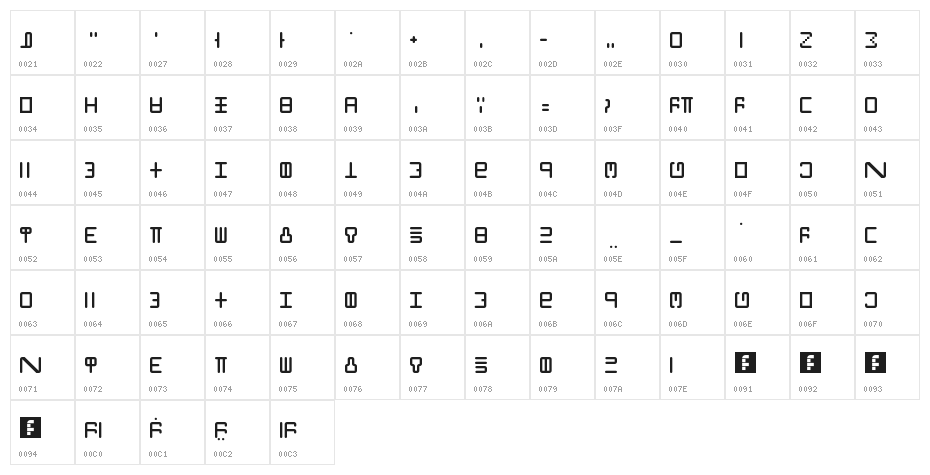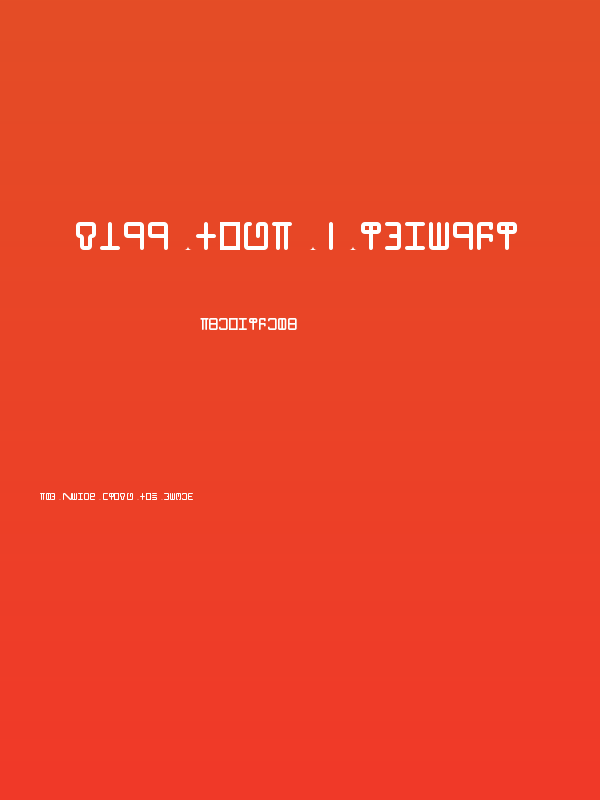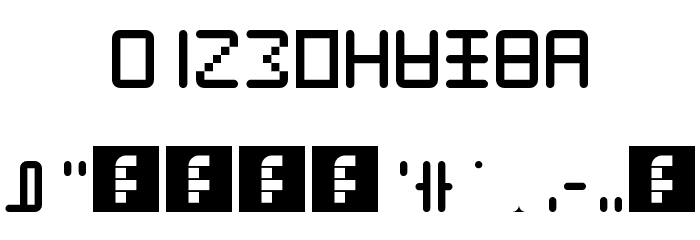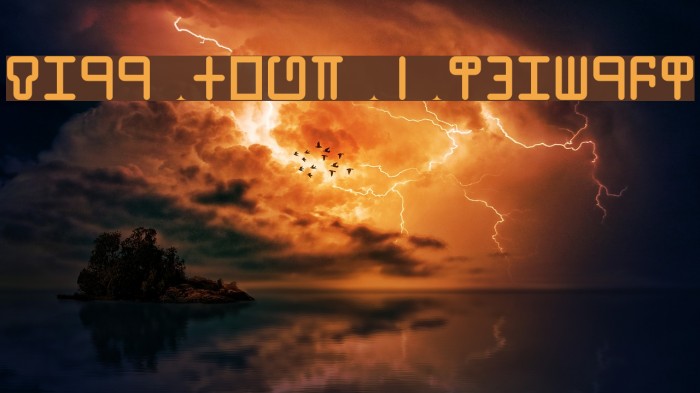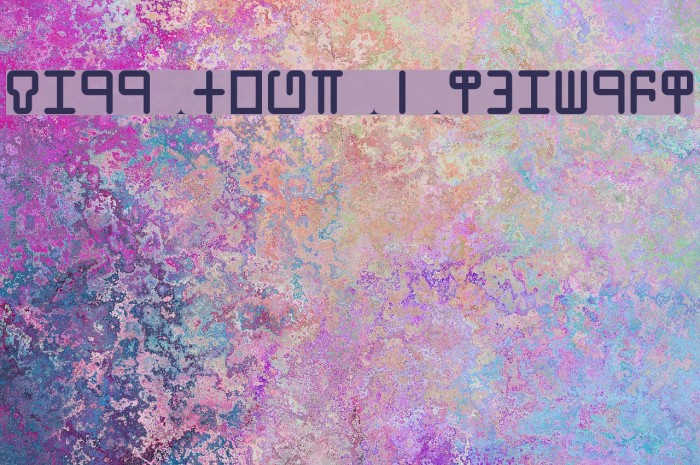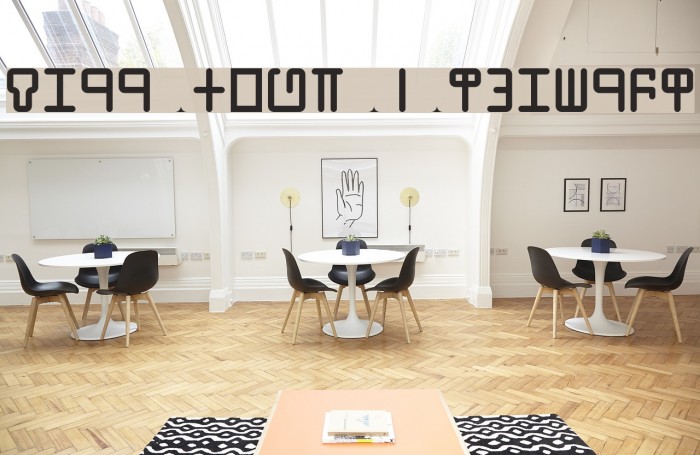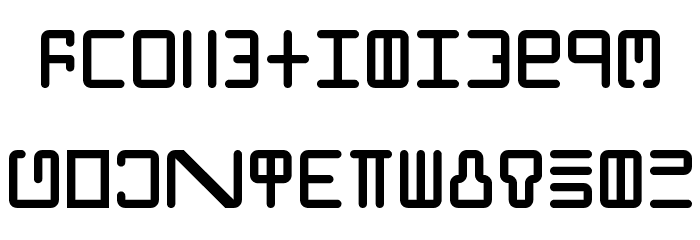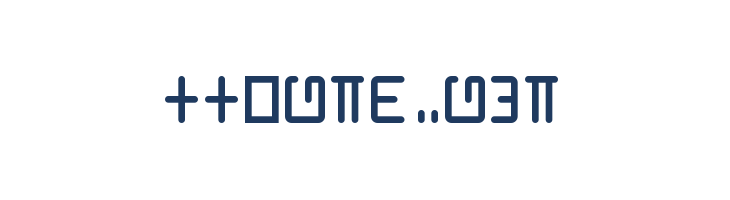
Will Font 1 Regular Font
This font features a futuristic and geometric design with rounded edges and a monospaced structure. Each character is crafted with a consistent width, giving it a uniform appearance. The letters and numbers are bold and have a distinct, blocky style that is reminiscent of digital or sci-fi themes. The special characters maintain the same geometric aesthetic, ensuring a cohesive look across all glyphs. The overall design is clean and modern, making it suitable for projects that require a tech-savvy or avant-garde feel.
| Use Case | Logos, Headlines, Digital interfaces |
| Proposed Projects | Ideal for tech-related branding, sci-fi movie posters, digital interfaces, and video game design. |